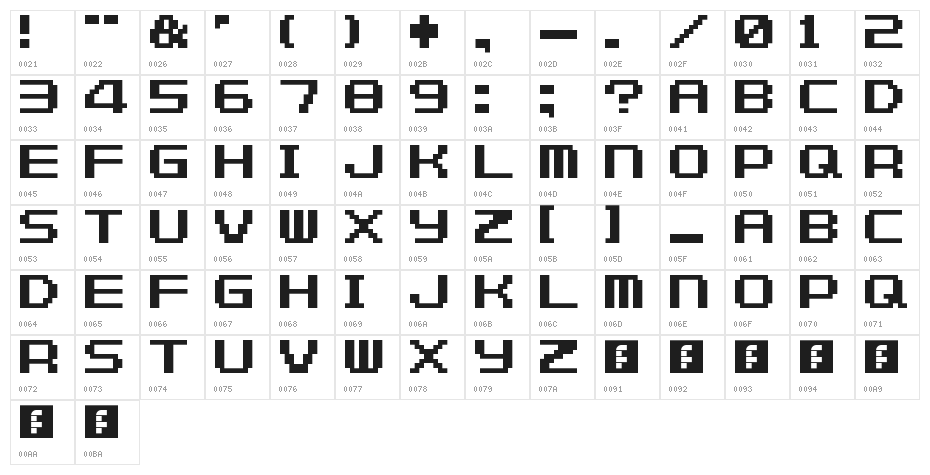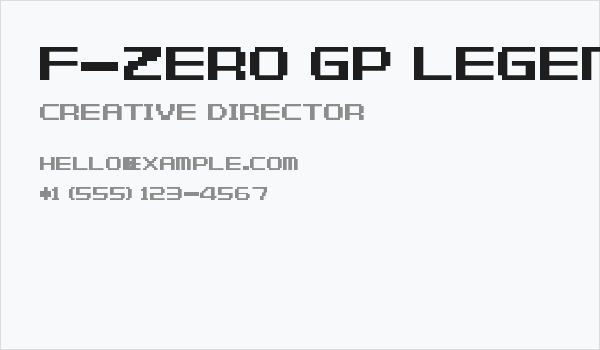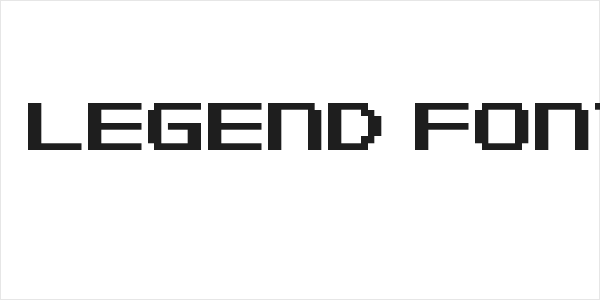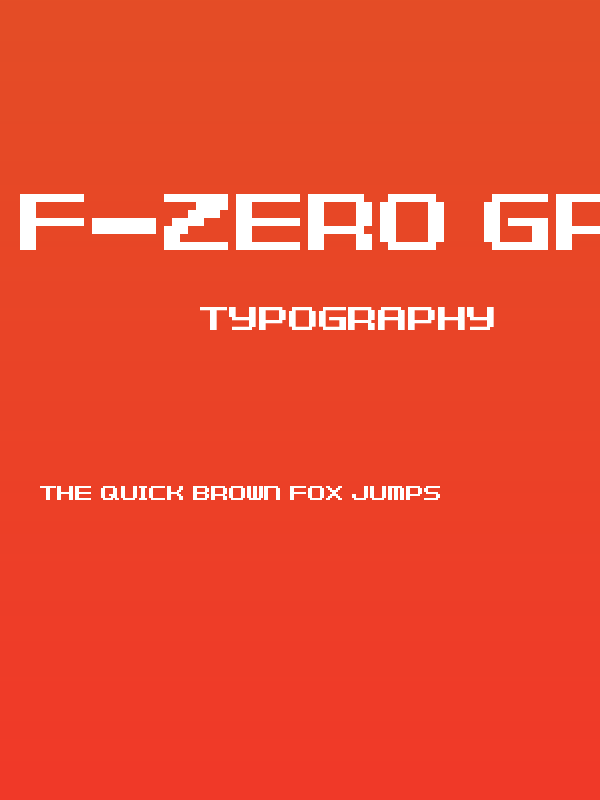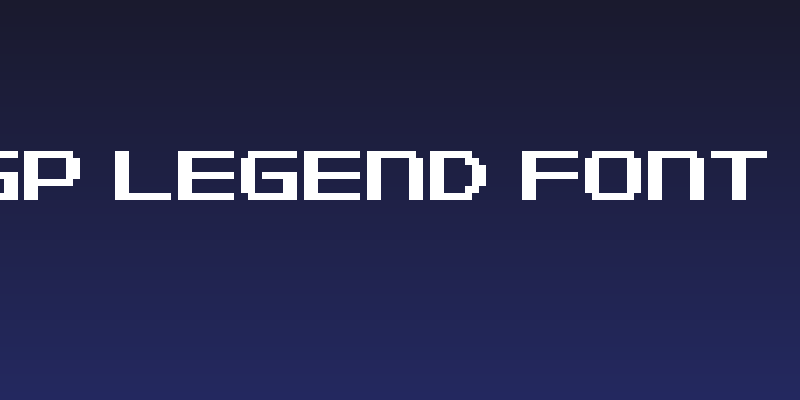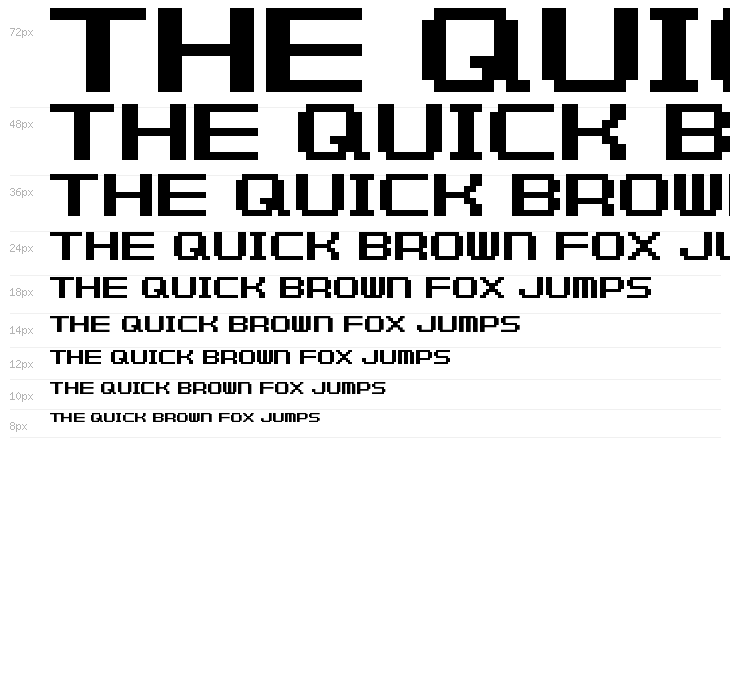
F-Zero GP Legend Font Regular Font
F-Zero GP Legend Font Regular Description
This font features a bold, geometric design with a distinctly pixelated appearance, reminiscent of classic video game graphics. The characters are uniformly structured, with sharp angles and consistent line thickness, creating a cohesive and modern digital aesthetic. The uppercase and lowercase letters maintain a uniform height, enhancing the font's blocky, monospaced feel. Numbers and special characters are designed with the same pixelated style, ensuring visual consistency across all glyphs. This font's unique style is ideal for projects that aim to evoke a sense of nostalgia for early digital or arcade games.
| Use Case | Logos, Headlines, Digital Art |
| Proposed Projects | Ideal for video game design, retro-themed graphics, digital art projects, and tech-related branding. |